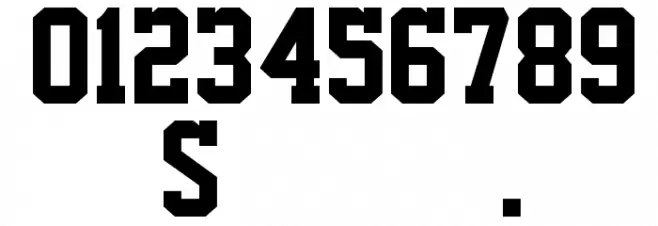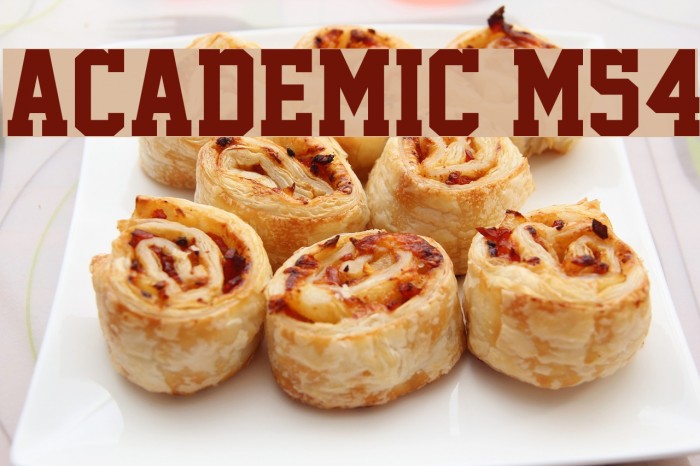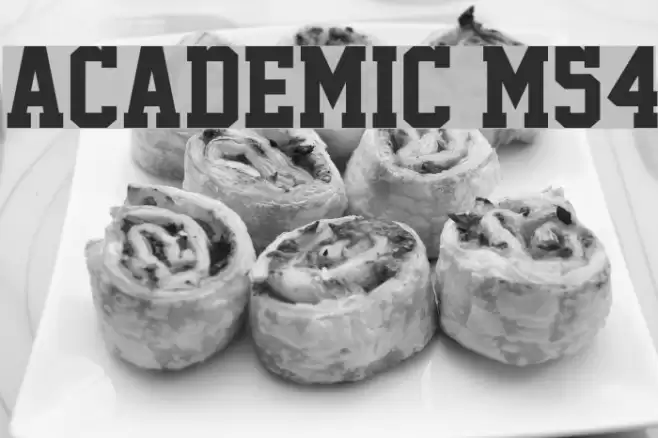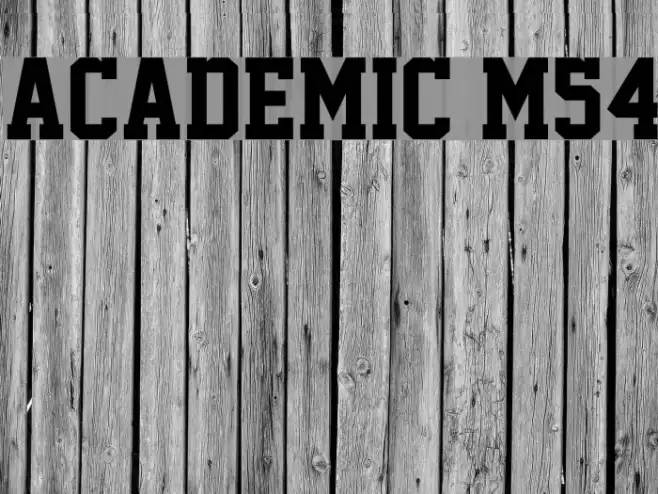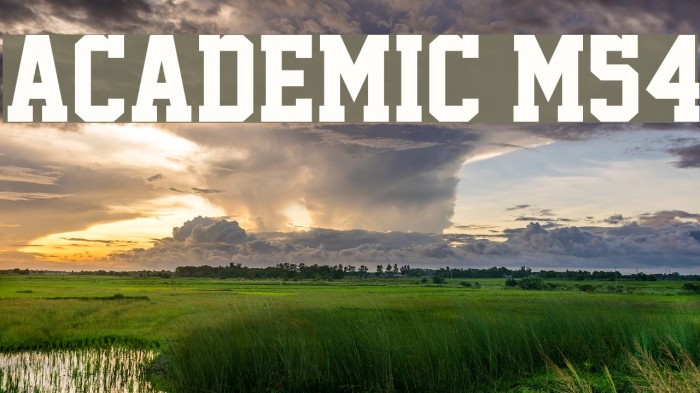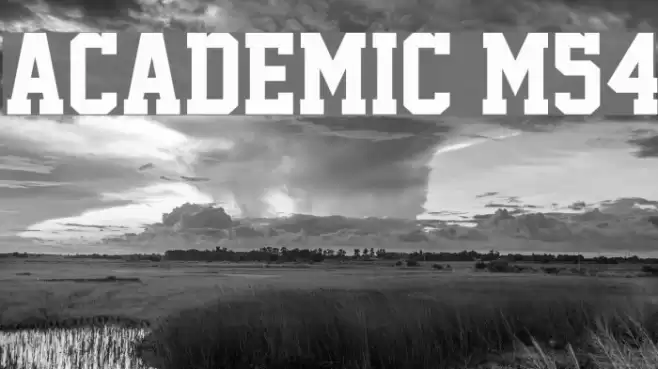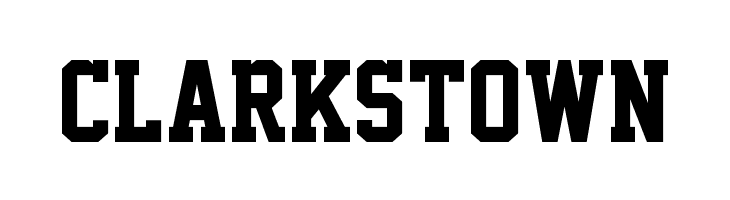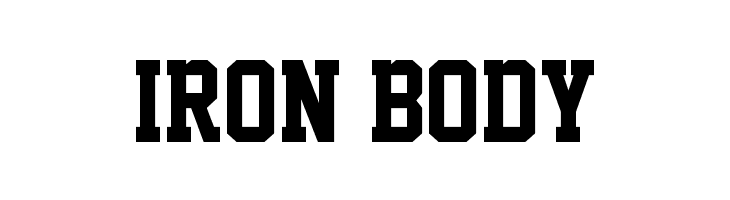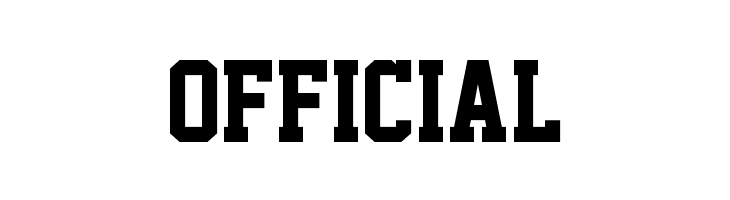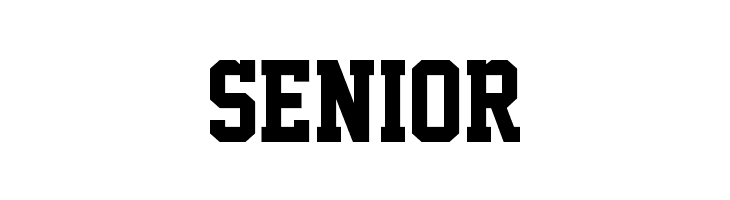
Academic M54 Font
Academic M54 Description
This font features bold, block-like characters with a strong, authoritative presence. The letters are uniformly wide with consistent stroke thickness, giving it a robust and impactful appearance. The geometric shapes and sharp edges contribute to a modern and professional look, making it suitable for attention-grabbing headlines and titles. The numbers and special characters maintain the same bold style, ensuring consistency across all text elements.
| Proposed Projects | Ideal for use in sports branding, posters, headlines, and any project requiring a bold, impactful typeface. |